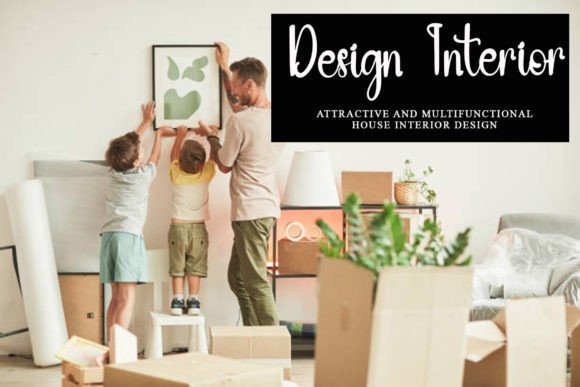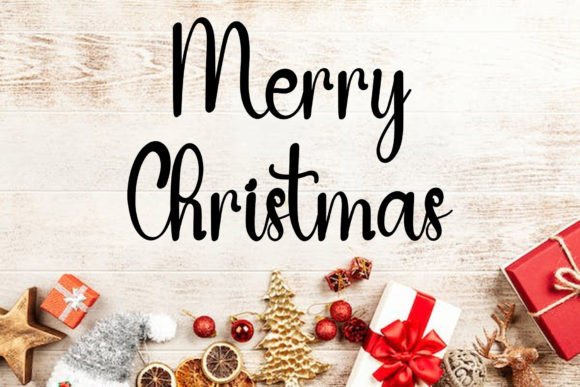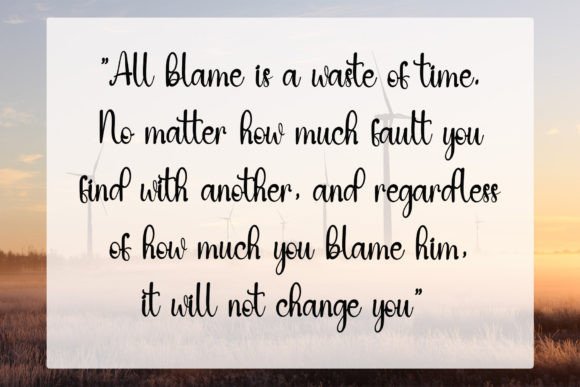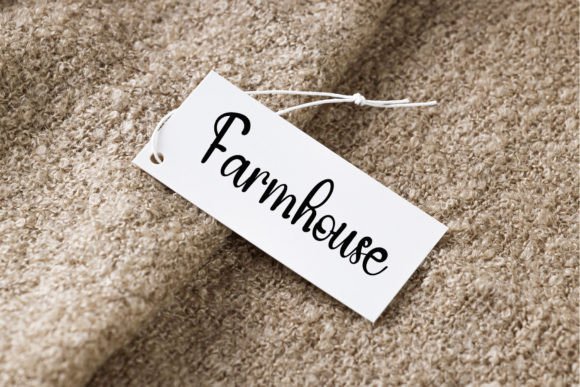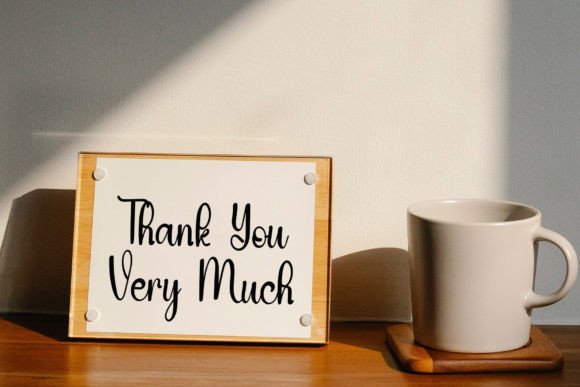
Introducing Building Handmade Font: A Sweet and Friendly Addition to Your Design Arsenal
Are you tired of using the same old fonts in your designs? Do you want to add a personal touch that sets your work apart from the rest? Look no further than Building Handmade, a sweet and friendly handwritten font that’s sure to capture the hearts of designers and crafters alike. With its natural and unique style, Building Handmade is incredibly versatile and can be used in a wide range of designs, from rustic and vintage to modern and playful.
Handwritten fonts have a way of adding a personal touch to any design. They evoke a sense of warmth, friendliness, and approachability that’s hard to replicate with more formal fonts. And Building Handmade is no exception. Its handmade aesthetic gives it a distinctly human feel, making it perfect for designs that require a personal touch. Whether you’re creating a logo, a poster, or a social media graphic, Building Handmade is sure to add a touch of personality to your work.
What Makes Building Handmade So Special?
So, what sets Building Handmade apart from other handwritten fonts? For starters, its natural and unique style makes it incredibly fitting for a wide range of designs. The font’s irregularities and imperfections give it a distinctly handmade feel that’s both charming and engaging. Additionally, Building Handmade is incredibly versatile, making it suitable for use in a variety of contexts, from headings and titles to body text and captions.
The only limit to what you can create with Building Handmade is your imagination! This font can be used in a wide range of designs, including:
- Rustic and vintage designs, such as wedding invitations, packaging, and signage
- Modern and playful designs, such as social media graphics, posters, and flyers
- Branding and logo design, including wordmarks, letterforms, and icons
- Stationery and paper goods, such as notebooks, journals, and greeting cards
Tips for Using Building Handmade in Your Designs
To get the most out of Building Handmade, here are a few tips to keep in mind:
- Experiment with different sizes and weights to add visual interest to your design
- Pair Building Handmade with other fonts to create a unique and eye-catching combination
- Use Building Handmade to add a personal touch to your design, such as in headings, titles, and captions
- Don’t be afraid to get creative and try out new and unusual design ideas!